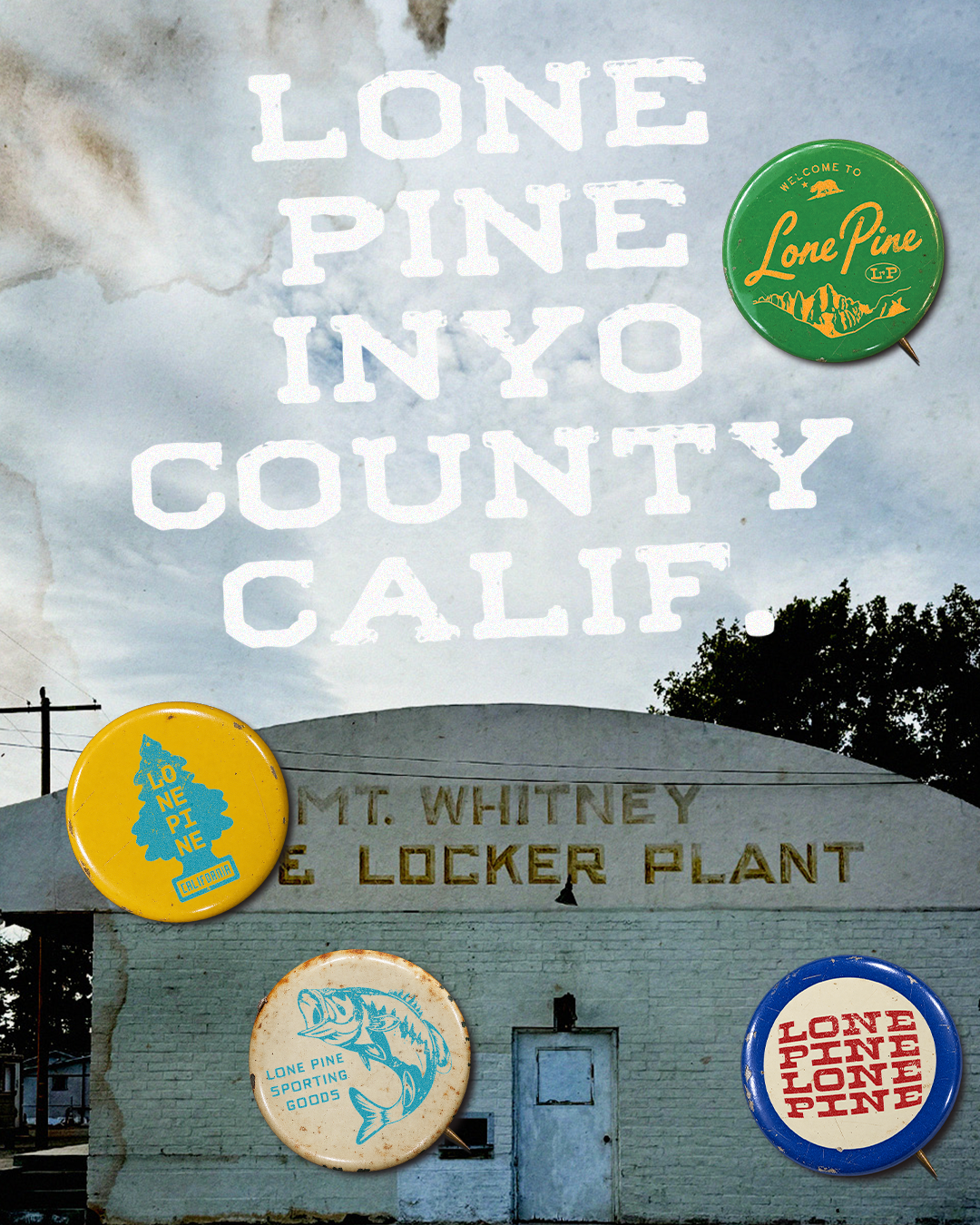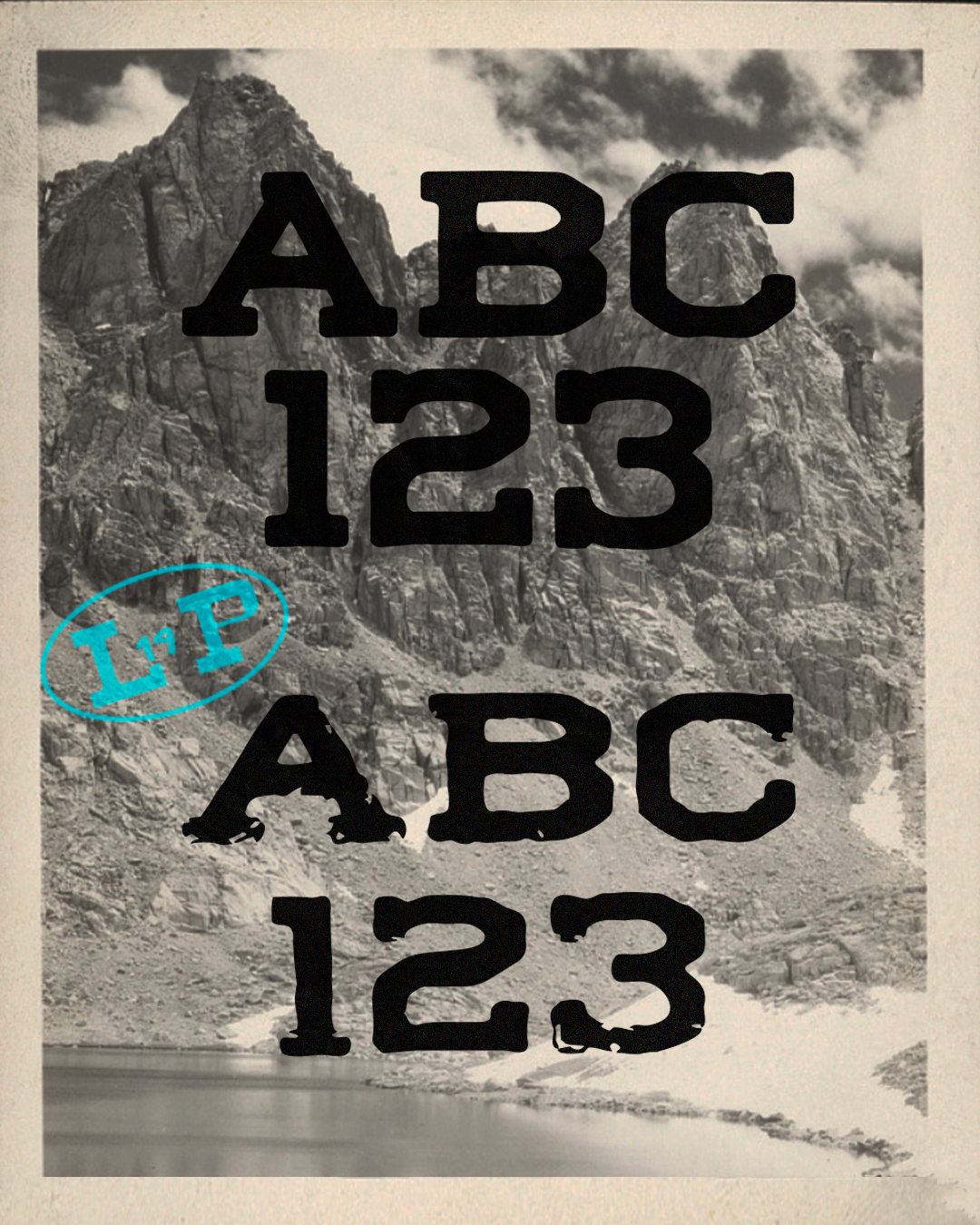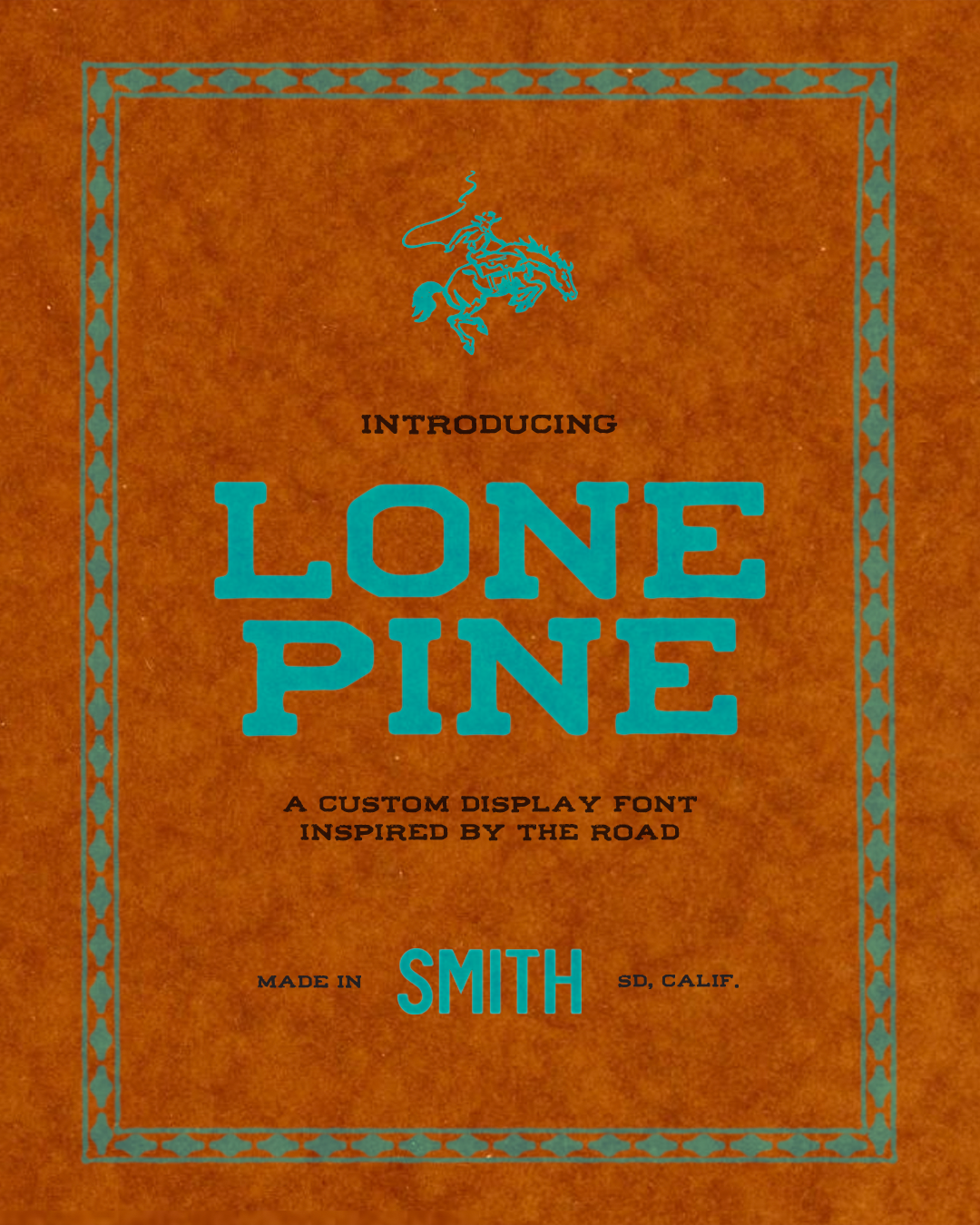
Inspired by a hand-painted sign found in Lone Pine, California, this font captures the character and imperfections of vintage roadside lettering. It includes both clean and distressed versions, each with a full set of uppercase and lowercase letters, numbers, and punctuation.